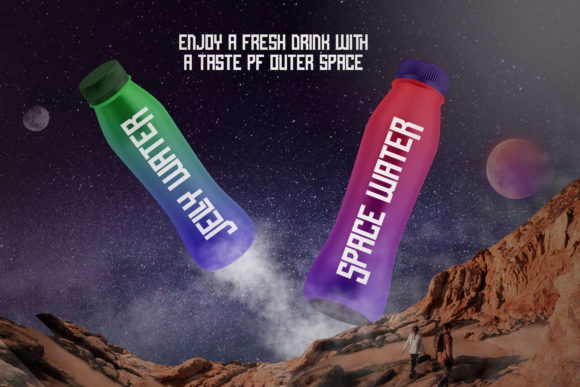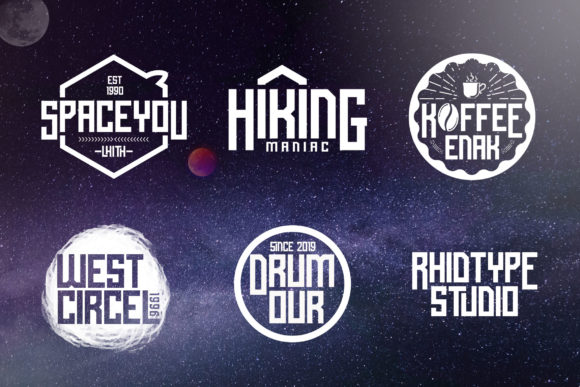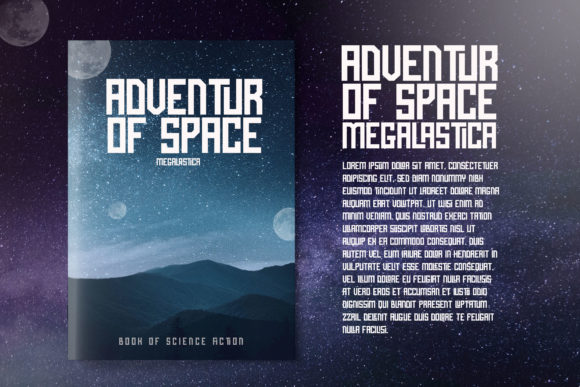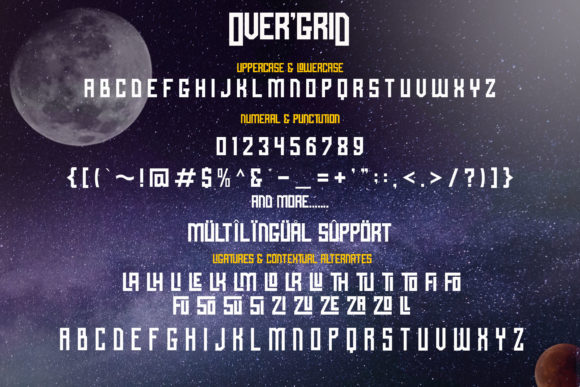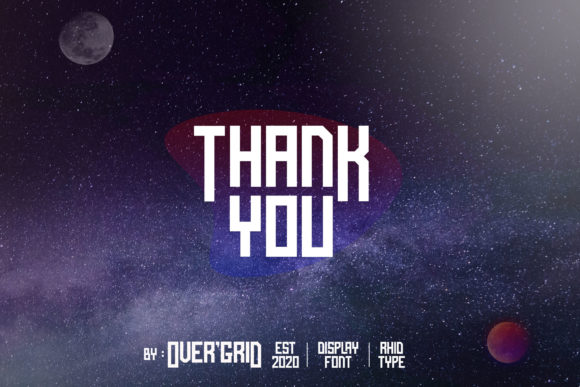
Introduction to Over’Grid Font
As a designer, have you ever found yourself stuck in a creative rut, struggling to come up with the perfect font to elevate your project? I know I have. But what if I told you that there’s a game-changing font out there that’s about to take your designs to the next level? Enter the Over’Grid Font, a bold and thick lettered display font that’s perfect for making a statement.
This versatile font is designed to be used in a variety of creative projects, from logos and headings to t-shirts and signage. And the best part? It’s available for free download, making it a valuable resource for designers of all levels. With its high-quality design and transparent background, the Over’Grid Font is a must-have for anyone looking to add a touch of sophistication to their work.
Key Features of Over’Grid Font
- High-quality design resource suitable for creative projects requiring a unique aesthetic.
- Includes a range of grid-based characters, perfect for designers working on projects that require precision and structure.
- Features a scalable design, available in various font sizes, making it ideal for use in both small and large-scale creative projects.
Honest Review: Over’Grid Font
As a designer, I’m always on the lookout for high-quality design resources to enhance my creative projects. The Over’Grid Font caught my attention with its unique and modern aesthetic.
What works well: ✨ The font is incredibly versatile, making it perfect for a wide range of design applications. Its clean and minimalist design ensures it won’t clash with any background, and the transparent background option is a great touch for creating visually appealing designs. Additionally, the font is available for free download, making it an excellent choice for designers on a budget.
What doesn’t work well: ⚠️ While the font is great for most design projects, I found it to be a bit limited when it comes to smaller font sizes. The letters can become slightly pixelated, which may not be ideal for designs that require precise typography. However, this is a minor issue and can be easily worked around.
Overall, I’m impressed with the Over’Grid Font. Its high quality and versatility make it a great addition to any designer’s toolkit. With its free download option and transparent background feature, it’s an excellent choice for designers looking to create stunning designs without breaking the bank.
- Highly versatile and modern aesthetic
- May not be ideal for smaller font sizes
Common Use Cases for Over’Grid Font
1. Branding and logos
2. Infographics and data visualization
3. Digital marketing materials, such as social media posts and ads